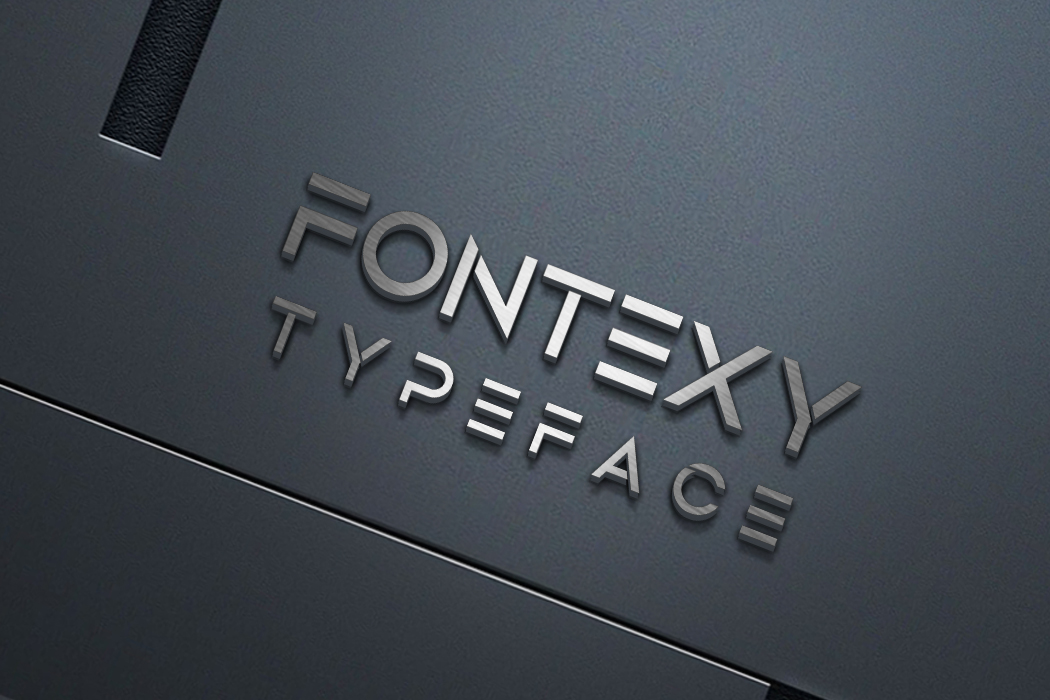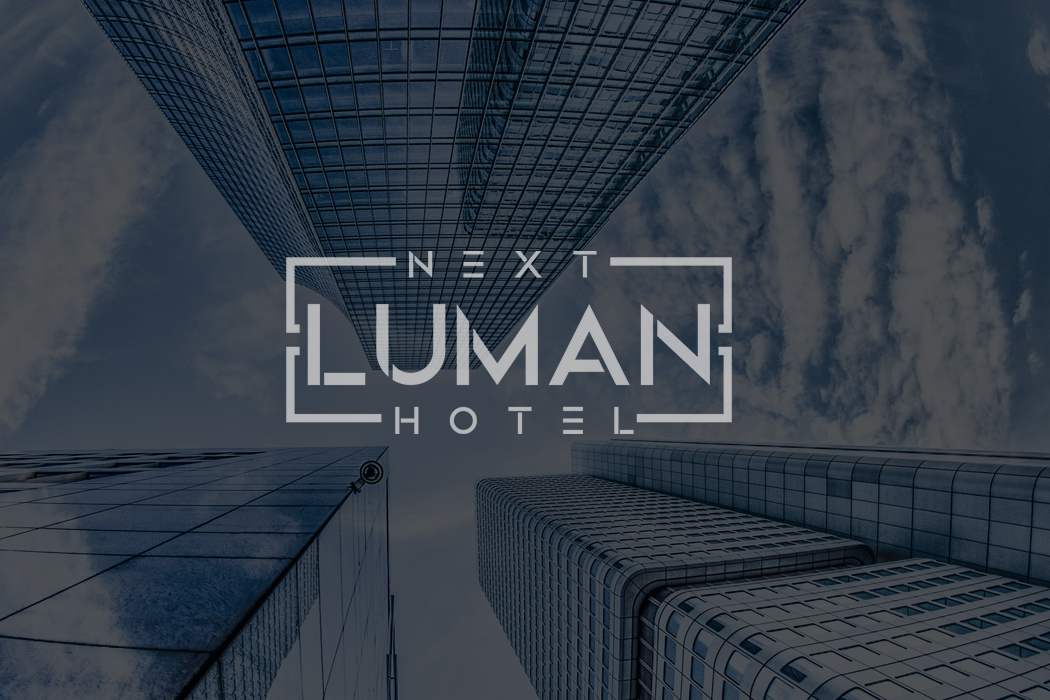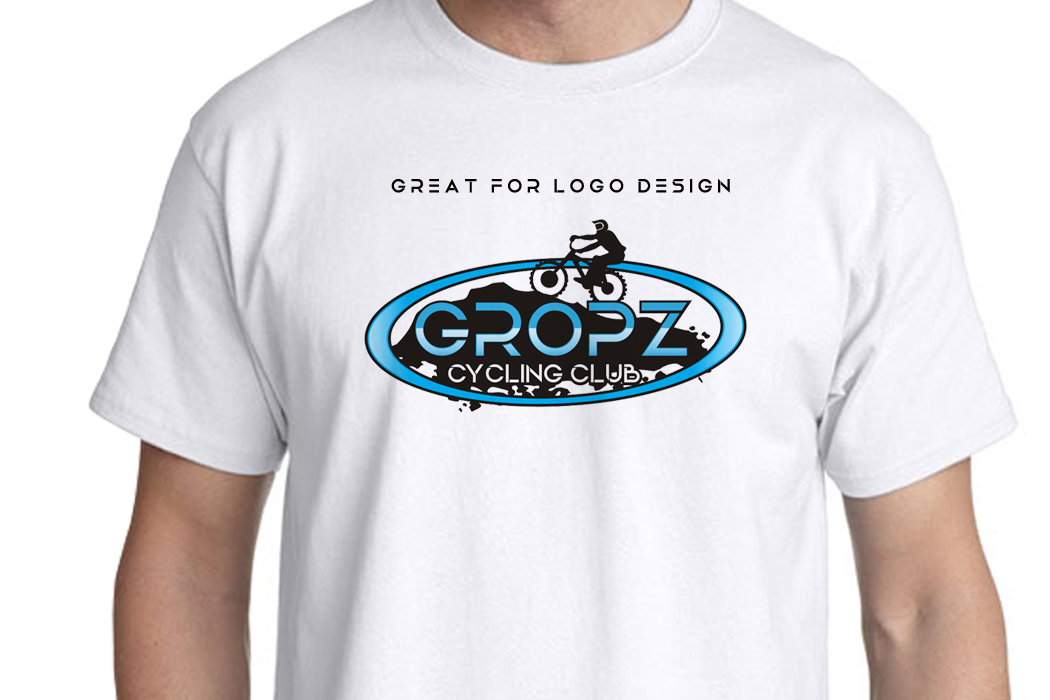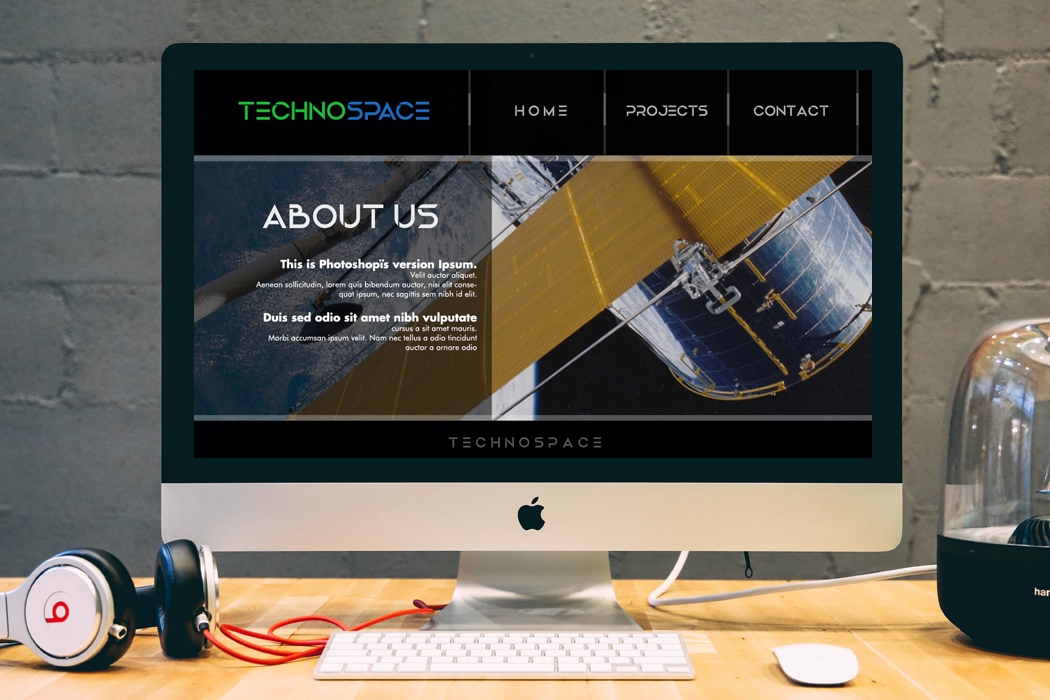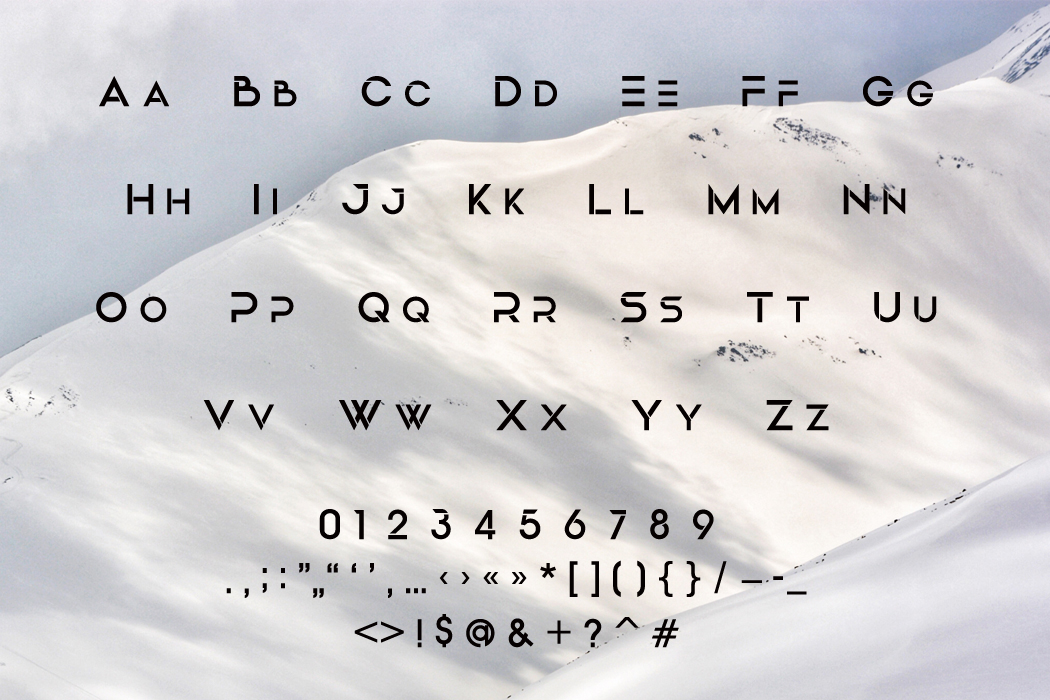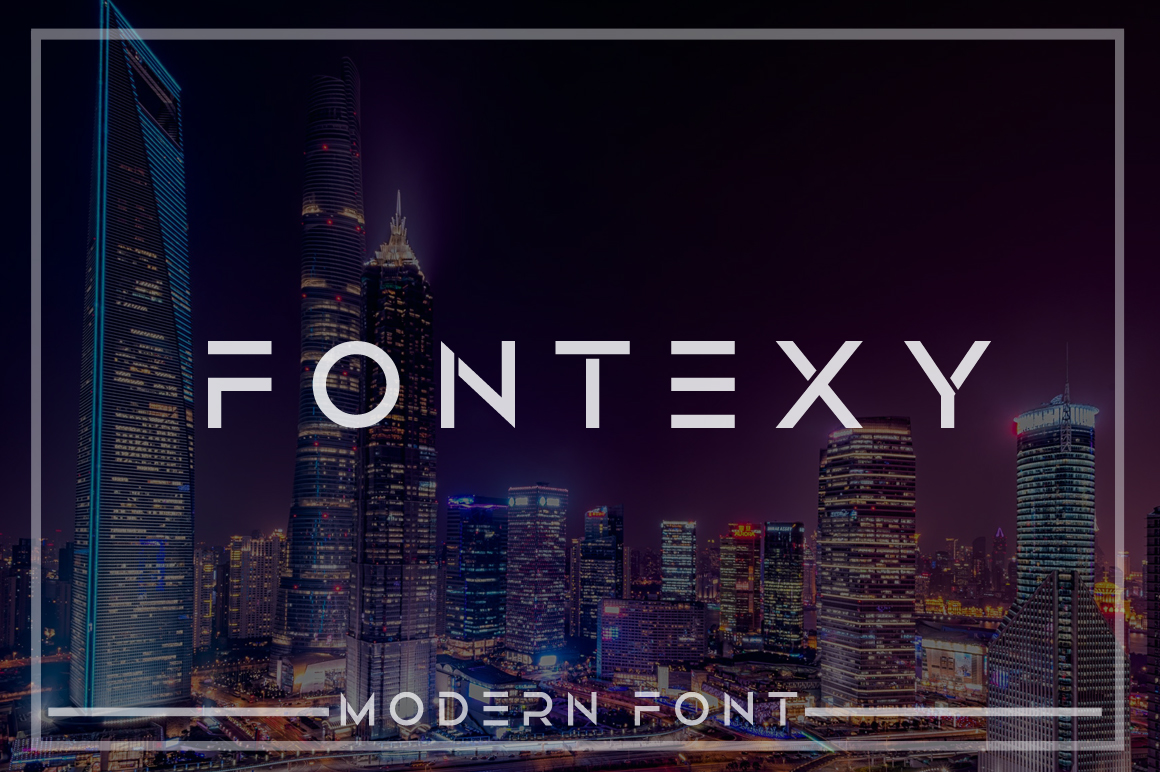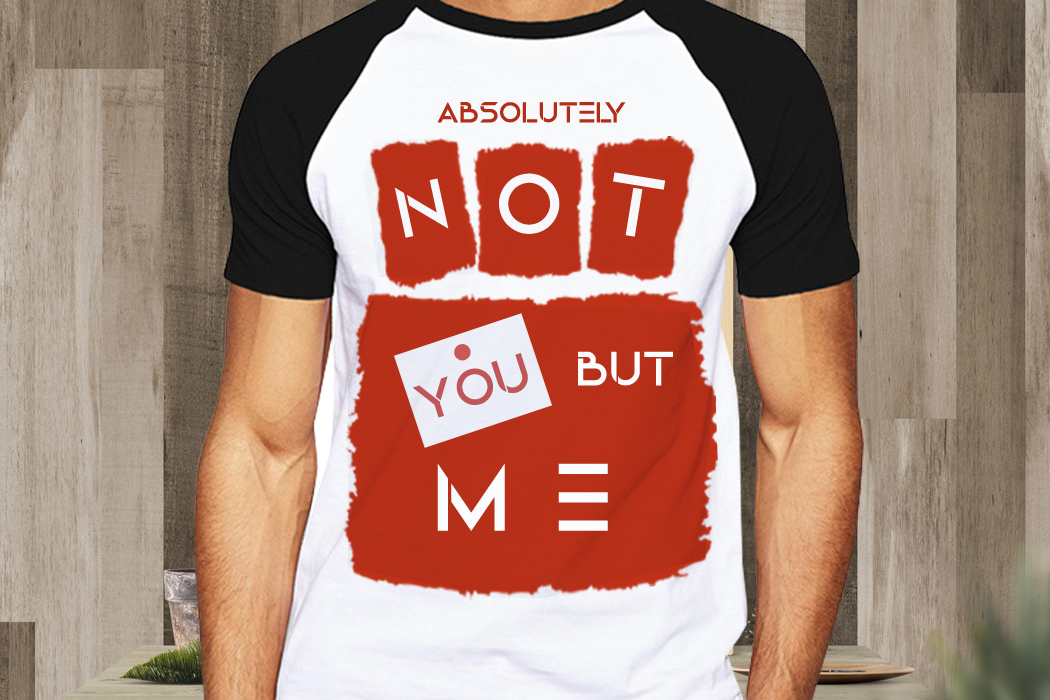
Fontexy Font
Intoducing our new font.. it's called FONTEXY!!
The FONTEXY is a modern typeface with simple, yet strong look. It has a good readability and includes geometric shapes which makes it perfect for modern designs.
Great for your modern themed designs, logo, web design, headline, letterheads, advertising and packaging, infographic, poster designs, music covers and so many more.
- Character set A-Z letters, Numeral and Punctuation